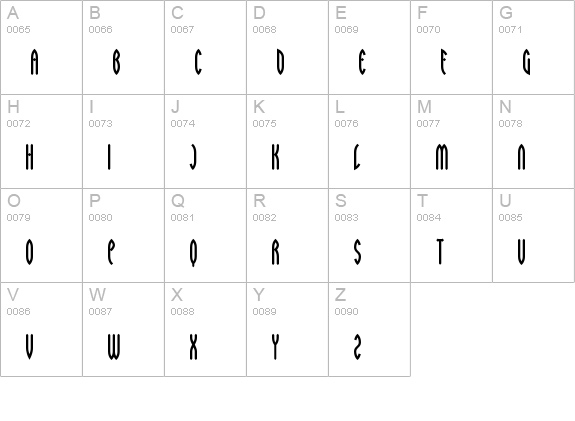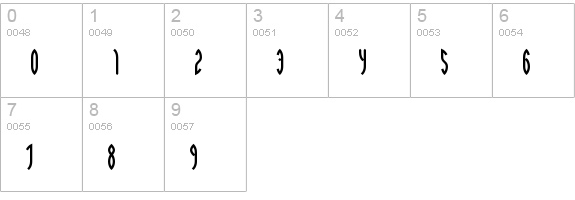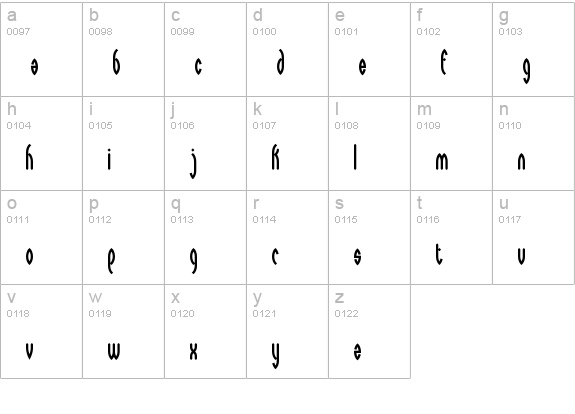
Wayward BRK Font Details
Wayward BRK font is a striking display typeface that exudes a sense of adventure and boldness. With its distinctive angular shapes and sharp edges, this font is perfect for creating eye-catching designs that demand attention. Whether you're working on a poster, logo, or branding project, Wayward BRK's unique style will make your text stand out. The best part is that Wayward BRK font is completely free to use! You can easily download it from FontsMarket.com and start incorporating its dynamic look into your designs right away. Don't miss out on this exciting font that will add a touch of rebellious spirit to your creative projects.